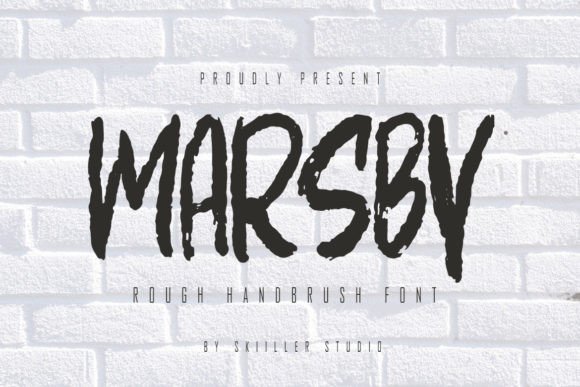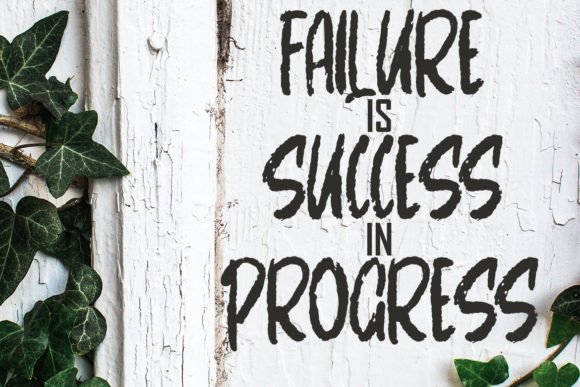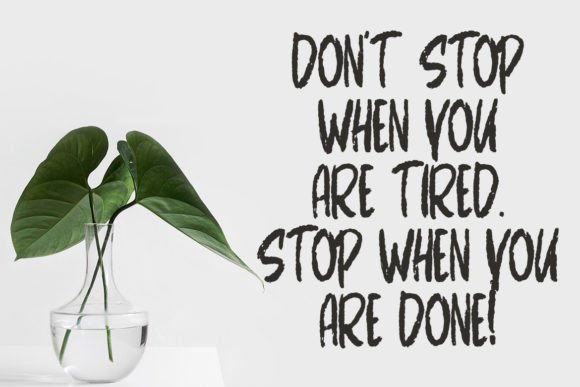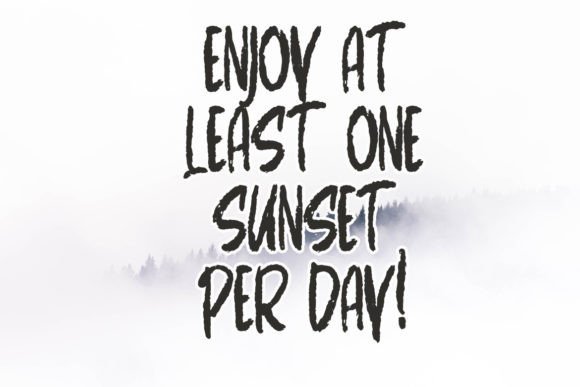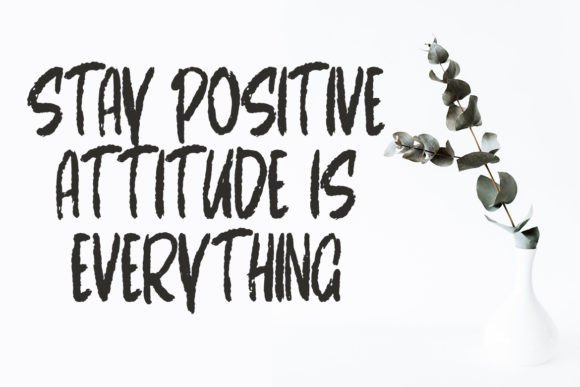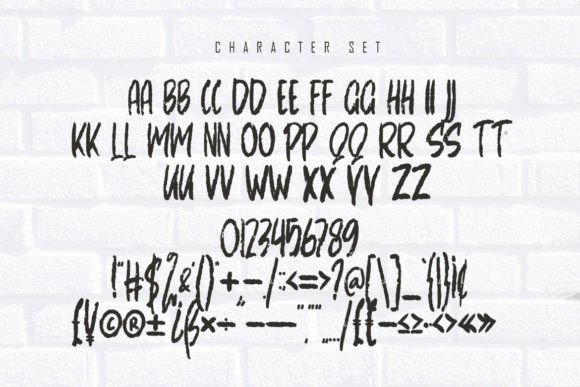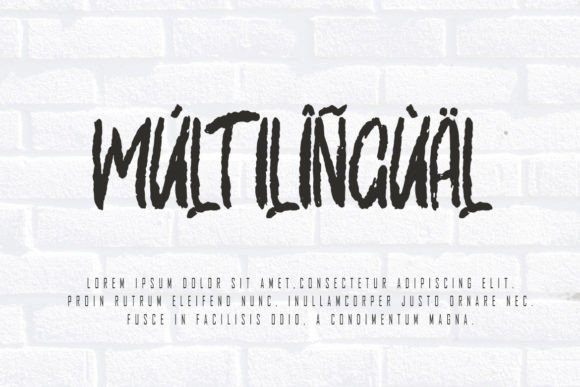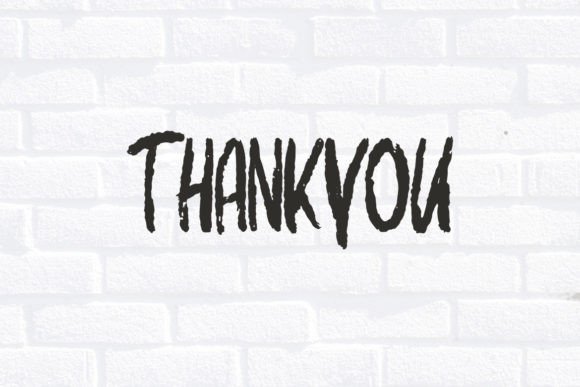
Marsby Font
About Marsby Font
Marsby font is a modern handwritten textured typeface designed to add a unique and artistic flair to your creative projects. When you download Marsby font, you get access to a stylish and textured script that combines modern handwriting with a natural, tactile feel. This font is perfect for anyone wanting to create standout designs with personality.
Perfect for Food Posters and Branding
Marsby font works exceptionally well for food posters and related branding materials. Its textured style adds warmth and approachability, making it an excellent choice for cafes, restaurants, and food product packaging. Download Marsby font to bring your culinary projects to life with a handcrafted touch.
Ideal for Logos and Album Covers
If you want your logo or album cover to stand out, Marsbyfont offers a bold yet textured aesthetic that grabs attention. This handwritten font blends modern design trends with artistic detail, making it a versatile choice for a wide range of creative uses. Download Marsbyfont to create visuals that.
Great for Apparel and Merchandise
Marsbyfont’s textured handwriting style is perfect for apparel and merchandise designs. Whether you’re creating t-shirts, tote bags, or other branded items, this font adds an authentic vibe. Download Marsbyfont to elevate your fashion and merch projects with a fresh, modern look.
Versatile for Many Design Projects
Beyond specific uses, Marsbyfont suits many creative projects requiring a textured and modern handwritten style. Its strokes and artistic make every design feel genuine.